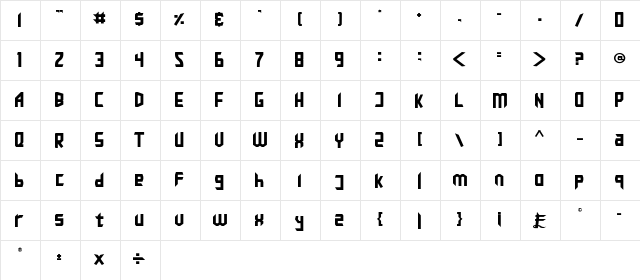
ZEROHATE Regular
| Designer | Fachranheit 2018 |
Design Context for ZEROHATE Typeface
ZEROHATE is a composed and adaptable typeface that performs quietly and consistently across a wide range of design contexts.